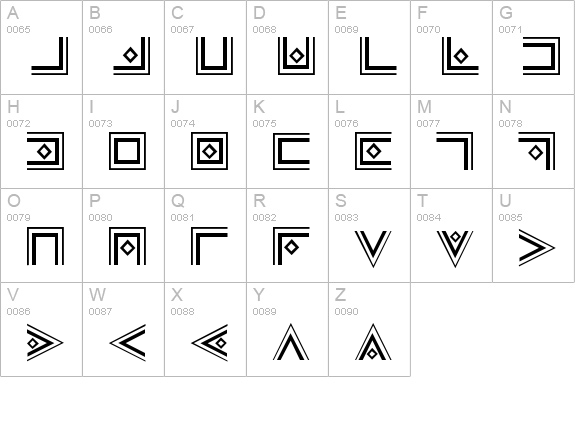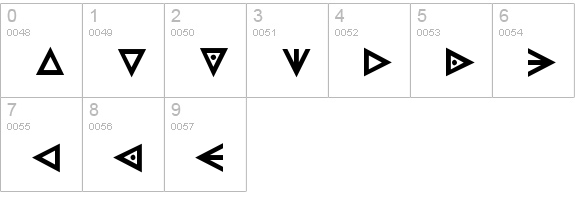
Introducing the Masonic Cipher & Symbols font, a mesmerizing typeface that captures the essence of ancient rituals and secret societies. This font is a tribute to the enigmatic world of Freemasonry, featuring a collection of intricate symbols and ciphers that have intrigued scholars and enthusiasts for centuries. With its meticulously crafted designs, the Masonic Cipher & Symbols font allows you to delve into the cryptic language of the Freemasons, unlocking the hidden messages and encrypted codes used by these secretive organizations. Each character in this font holds a fascinating meaning, allowing you to communicate in a manner that is both mysterious and captivating. The Masonic Cipher & Symbols font is not only visually stunning, but it also serves as a valuable resource for researchers, historians, and anyone interested in the intriguing world of Freemasonry. Whether you are studying the rituals, deciphering coded messages, or simply appreciate the aesthetic beauty of these symbols, this font provides an invaluable tool for exploration. Best of all, the Masonic Cipher & Symbols font is freely available to download at FontsMarket.com. This means that you can easily access this remarkable font and incorporate it into your projects, presentations, or personal designs without any cost. Unleash your creativity and let the allure of Freemasonry inspire you with this exceptional font. Download the Masonic Cipher & Symbols font today and embark on a journey into the captivating realm of secret societies. Uncover the hidden knowledge and unravel the mysteries encoded within this extraordinary font. With its intricate designs and free availability, this font is a must-have for anyone seeking to add a touch of intrigue and fascination to their work.